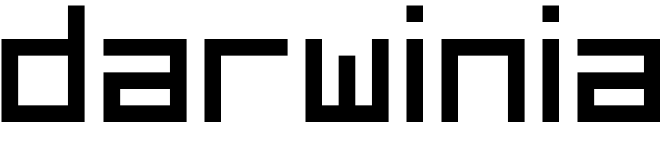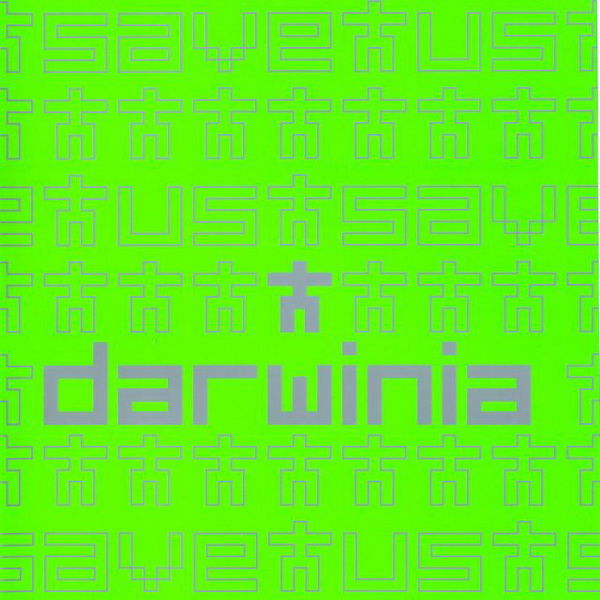
Darwinia Font
Fonts in UseDarwinia is a real-time strategy video game developed by Introversion Software. It was released in 2005, featuring a unique retro-futuristic visual style and gameplay set in a digital world.
The logotype of Darwinia features a font that resembles Bit Low, created by Magnus Högberg. This typeface includes uppercase letters, numbers, and a selection of punctuation marks. You can acquire the font at no cost from the Fonts Used Section.